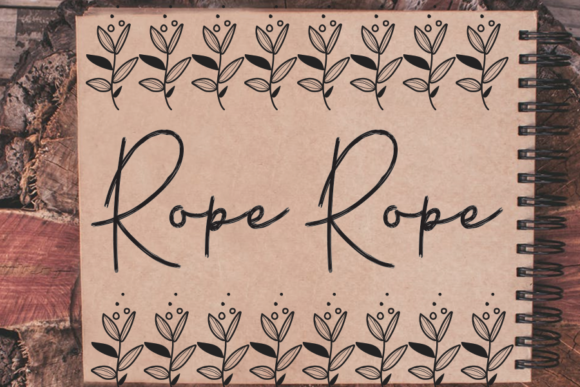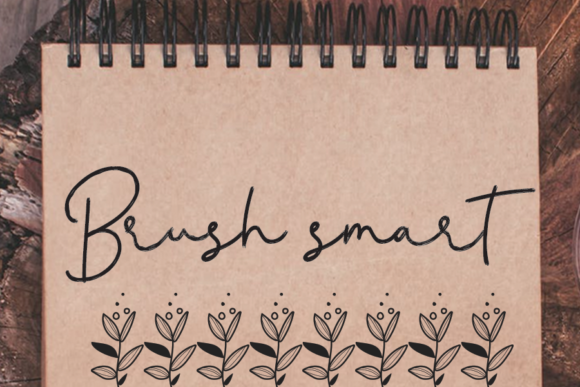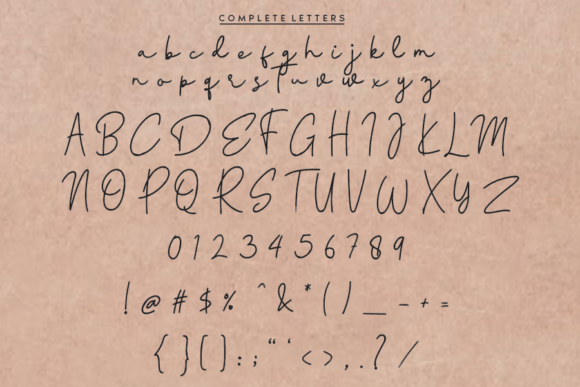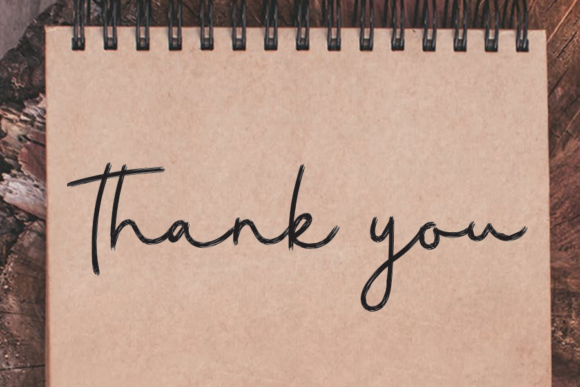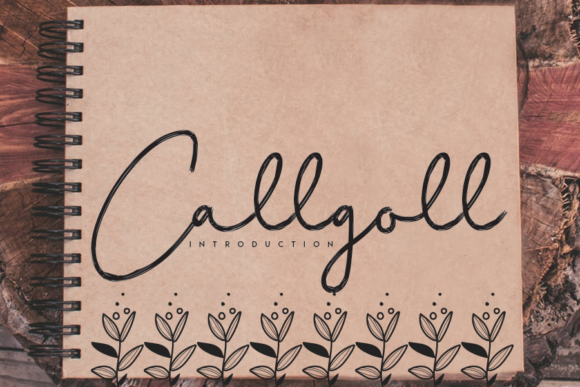
Introducing Callgoll Font: The Perfect Blend of Casual and Cute
Are you on the hunt for a font that adds a touch of personality to your designs? Look no further than Callgoll Font, a casual and cute handwritten font created with a brush pen. This charming font is perfect for designers, crafters, and DIY enthusiasts looking to add a dash of whimsy to their projects.
The Story Behind Callgoll Font
Callgoll Font is a unique and quirky font that has been carefully crafted to bring a sense of playfulness and friendliness to your designs. The font’s creator used a brush pen to develop the characters, giving it a clean and organic feel that’s perfect for a wide range of applications.
Key Features of Callgoll Font
- Handwritten with a brush pen: Callgoll Font has been lovingly created using a brush pen, giving it a distinctive and personal touch.
- Casual and cute: This font is perfect for designers who want to add a touch of whimsy and playfulness to their designs.
- Clean and quirky: Callgoll Font has a clean and quirky feel that’s perfect for logos, branding, social media, and crafty DIY projects.
- Versatile: This font can be used for a wide range of applications, from digital designs to print materials.
Callgoll Font is a dream come true for designers and crafters who want to add a personal touch to their projects. Whether you’re creating logos, branding materials, social media graphics, or crafty DIY projects, this font is the perfect fit. Its casual and cute feel makes it ideal for:
- Logos and branding: Create unique and memorable logos that stand out from the crowd.
- Social media graphics: Add a touch of personality to your social media graphics and make them more engaging.
- Crafty DIY projects: Use Callgoll Font to add a personal touch to your crafty DIY projects, such as handmade cards, gift tags, and more.
Tips for Using Callgoll Font
To get the most out of Callgoll Font, here are a few tips to keep in mind:
- Pair it with other fonts: Experiment with pairing Callgoll Font with other fonts to create interesting and unique combinations.
- Use it in different sizes: Callgoll Font looks great in a variety of sizes, from small and delicate to large and bold.
- Experiment with colors: Try using Callgoll Font in different colors to add an extra touch of personality to your designs.
Callgoll Font is a unique and versatile font that’s perfect for designers, crafters, and DIY enthusiasts. Its casual and cute feel makes it ideal for a wide range of applications, from logos and branding to social media graphics and crafty DIY projects. With its clean and quirky feel, Callgoll Font is sure to add a touch of personality to your designs. So why not give it a try and see what amazing creations you can come up with?